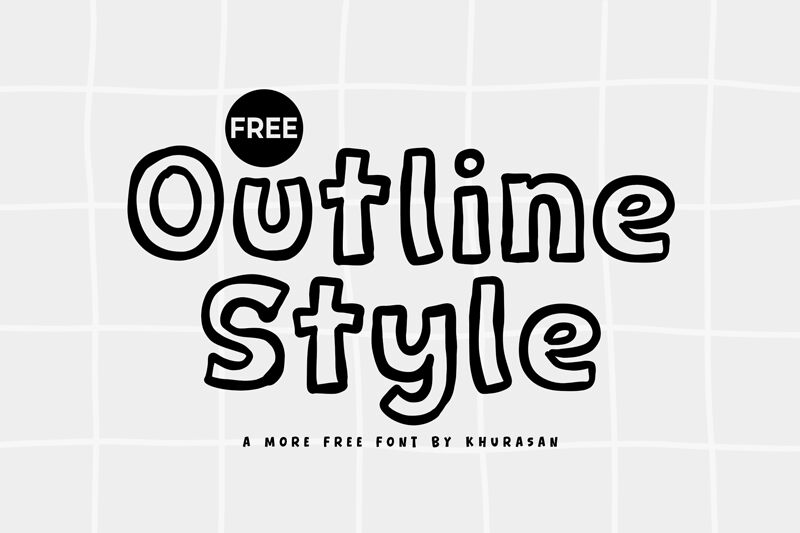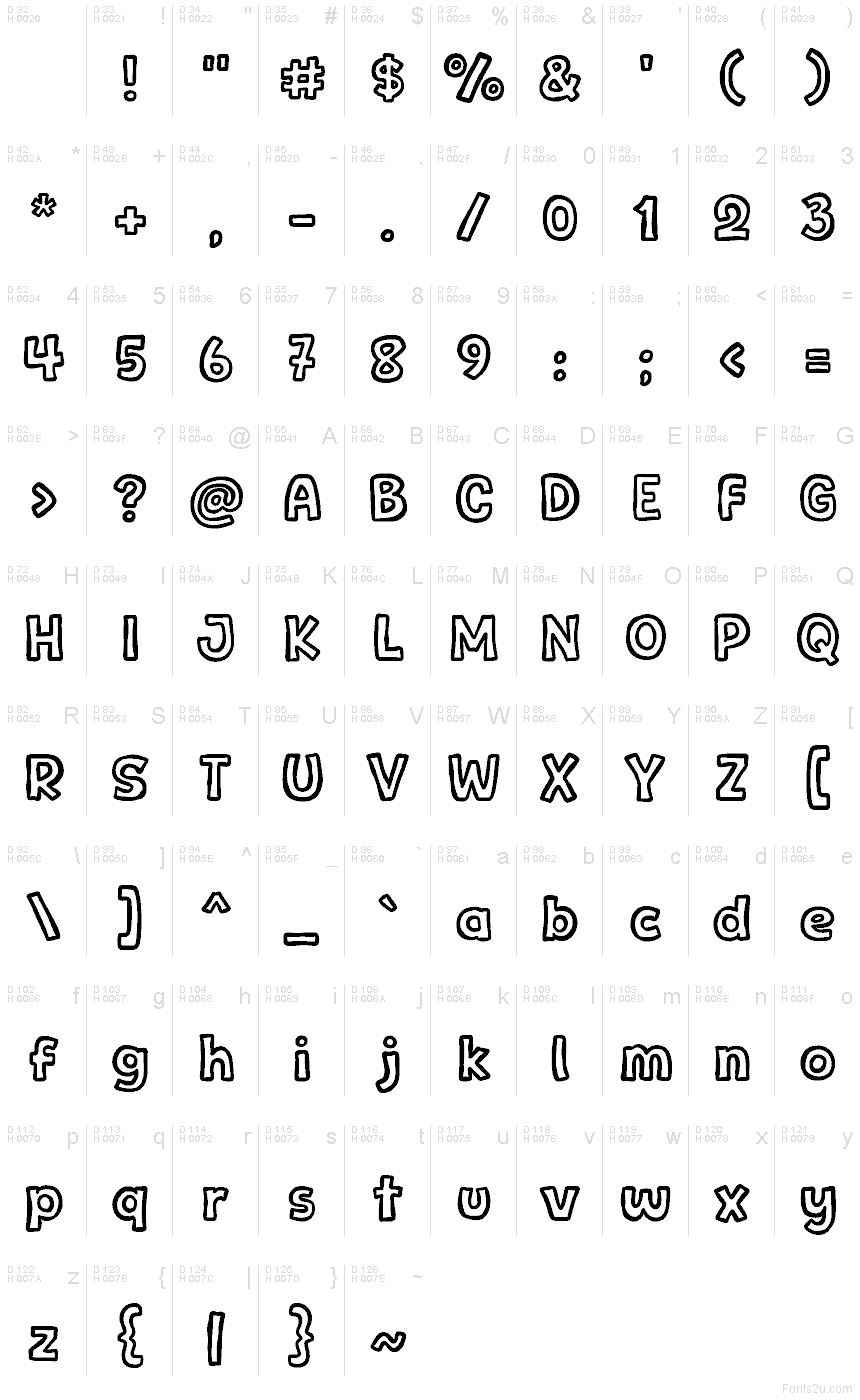
Outline Style
Outline Style font by Khurasan is a free cartoon outlined typeface. Each letter wears a thick, inky contour with a friendly wobble, leaving a roomy interior that begs for color, gradients, or texture. The rhythm is bouncy but readable, so headlines pop without turning messy or loud.
Using Outline Style, you can splash personality into kids’ posters, birthday invites, comic headers, classroom printables, stickers, and playful logos. The hollow shapes make quick work of layered color effects or drop shadows, shining on thumbnails and packaging alike. For clarity, set it big and pair with a simple rounded sans for captions.